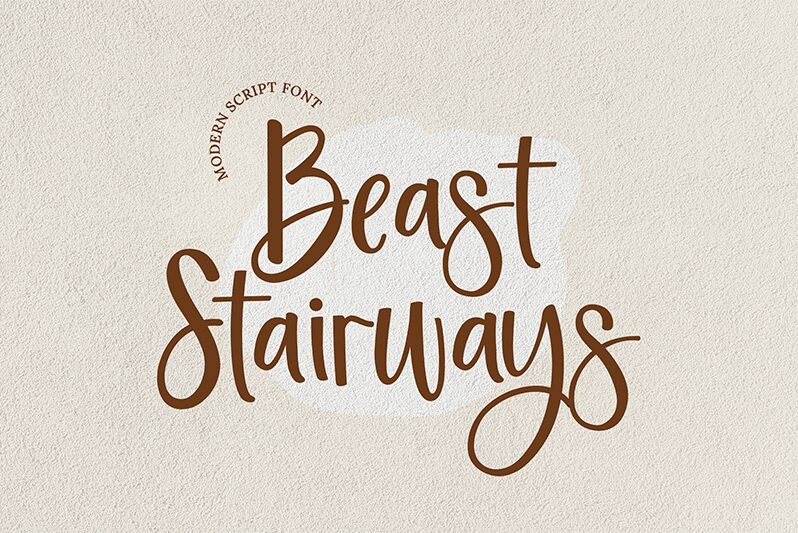
BeastStairways
BeastStairways font by UI Creative is a free brush font whose elegance and uniqueness create attention-grabbing designs. Its character stems from the way it translates traditionally sketched letters into digital typefaces that deliver in both personal and commercial projects, offering an artistic flair and expressive personality to outlines both on screen as well as on print publications.
Its fluid curves connect in style ribbon-like lines that add modern calligraphy aesthetics to headings, titles, posters, cover arts, package designs, journal covers, invitations like wedding cards or other ceremonial events. Go also for branding contexts with logos or product packaging using this wonderful tool.